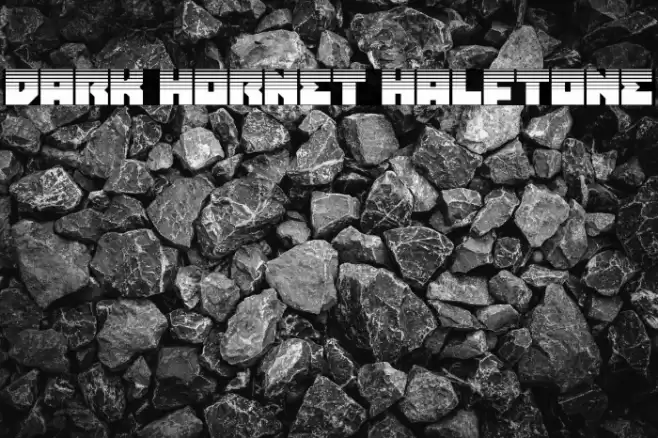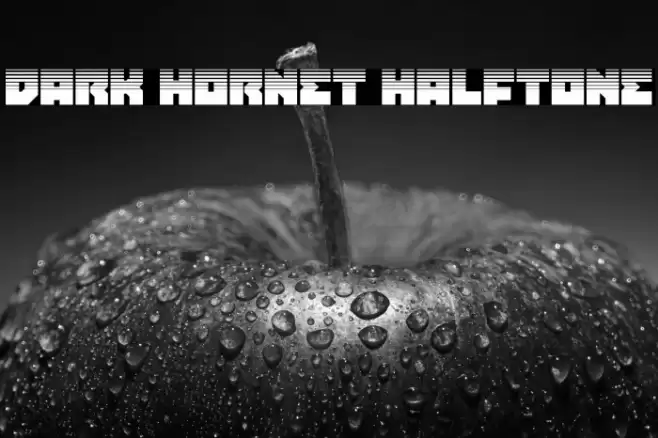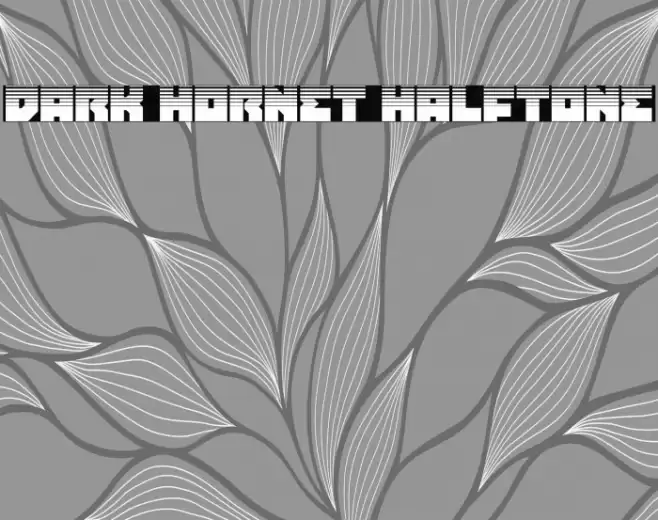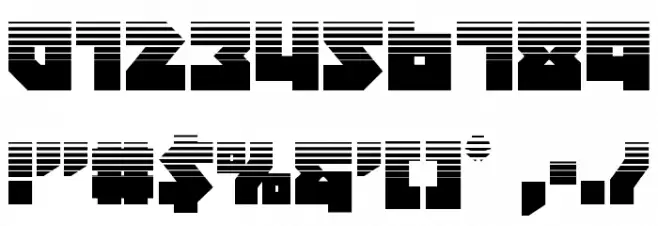
Dark Hornet Halftone Font
Dark Hornet Halftone Description
This font features a bold, futuristic design with a distinct halftone effect. The characters are constructed with solid black bases and horizontal white stripes across the top, creating a dynamic, layered appearance. The geometric shapes and sharp angles give it a modern, tech-inspired look. The uppercase and lowercase letters maintain a consistent style, while numbers and special characters are designed to match the overall aesthetic. The font's unique style makes it stand out, suitable for projects that require a strong visual impact.
A bold, futuristic font with a halftone effect and geometric design from Uncategorized fonts.
- Proposed Projects: Ideal for sci-fi themed designs, tech branding, video game titles, and posters.